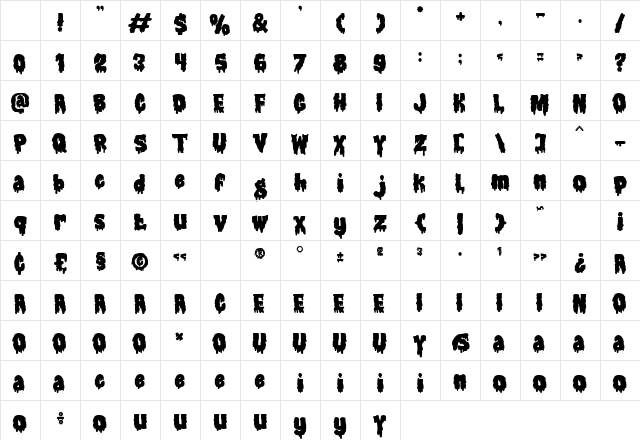
Gothic Haunt Blood carries an unsettling edge - its distorted letterforms are built to unsettle, perfectly suited to horror, Halloween, and dark creative work.
Font Pairing: Pair with a clean neutral sans-serif for body copy to let Gothic Haunt Blood's character lead without overwhelming the composition.
Pro Tip: Use Gothic Haunt Blood at larger display sizes for maximum impact. Consider generous tracking to let the disturbing character of each letterform breathe.